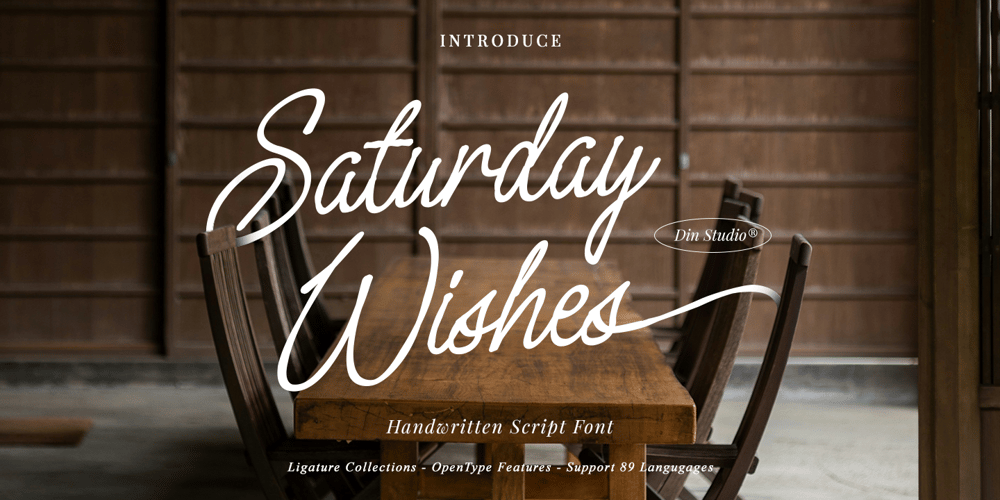
Saturday Wishes Font Family was designed by Donis Miftahudin and published by Din Studio. Saturday Wishes contains 1 styles and family package options. Saturday Wishes is a delightful handwritten font that brings a sense of joy and whimsy to your designs. Crafted with a medium weight, the connected letters flow effortlessly, creating a harmonious and cohesive script. The consistent letter proportions ensure readability, while the playful swing at the end of each letter adds a touch of flair and personality. In addition, enjoy the features here.Features: Ligatures Stylistic Sets Multilingual Supports PUA Encoded Numerals and Punctuations Saturday Wishes fits in logos, posters, flyers, branding materials, print media, editorial layouts, and many more designs. Find out more ways to use this font by taking a look at the font preview.Thanks for purchasing our fonts. Hopefully, you have a great time using our font. Feel free to contact us anytime for further information or when you have trouble with the font. Thanks a lot and happy designing.